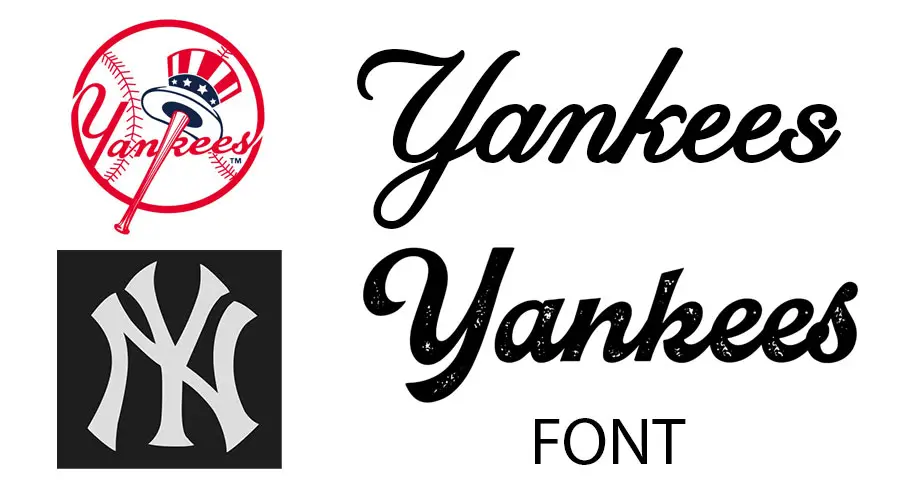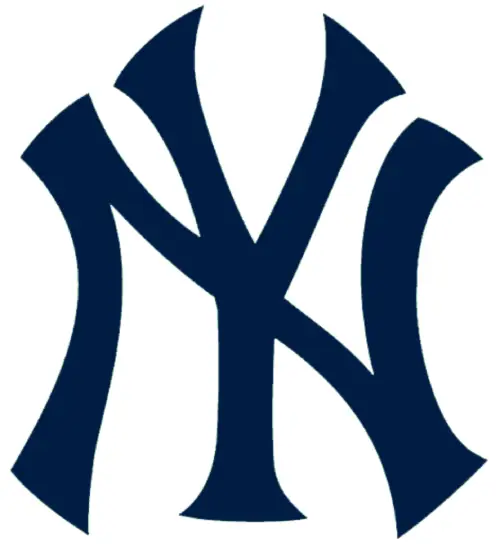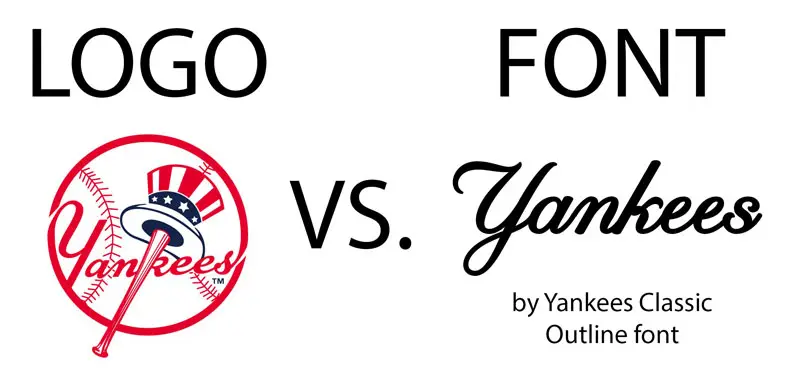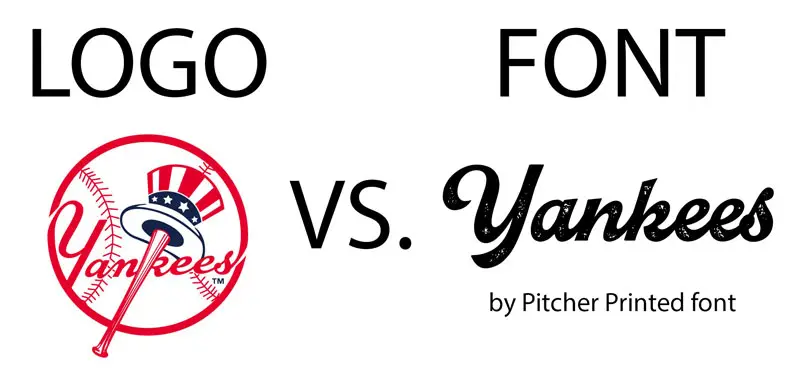
Yankees font
Looking for Yankees fonts? Then you are in the right place. The New York Yankees logo font is one of the most recognizable in sports history. The New York Yankees logo font is a bold and iconic typeface that has become an integral part of the team’s branding.
So, what font is used in the Yankees logo?
We found that the font used in the latest New York Yankees logo (used from 1968 to the present day) is similar to a font called Pitcher Printed designed by Fenotype. Emil Bertell designed the font, and it’s free for personal use. See the below versus image for a better understanding.
However, there are other typefaces that are similar to the logo but with some differences. Like the Yankees Classic font, which is also a popular alternative and includes uppercase and lowercase letters. This font was designed to mimic the iconic New York Yankees baseball team logo.
We also found the match font for the old logo, which was the very first logo with stylized interlocking NY.
You will find the exact logo in the symbolic font called MLB AL Font. MLB AL Font is a font used for logos on Major League Baseball (MLB) teams. If you type the character (P) then the exact same logo will show.
Overall, the Yankees logo font has remained consistent throughout the team’s history, with only minor changes to the design. The font has become synonymous with the team and is instantly recognizable to fans around the world. Whether you’re a fan of the classic or modern Yankees logo font, there are plenty of options available for you to use in your own designs.